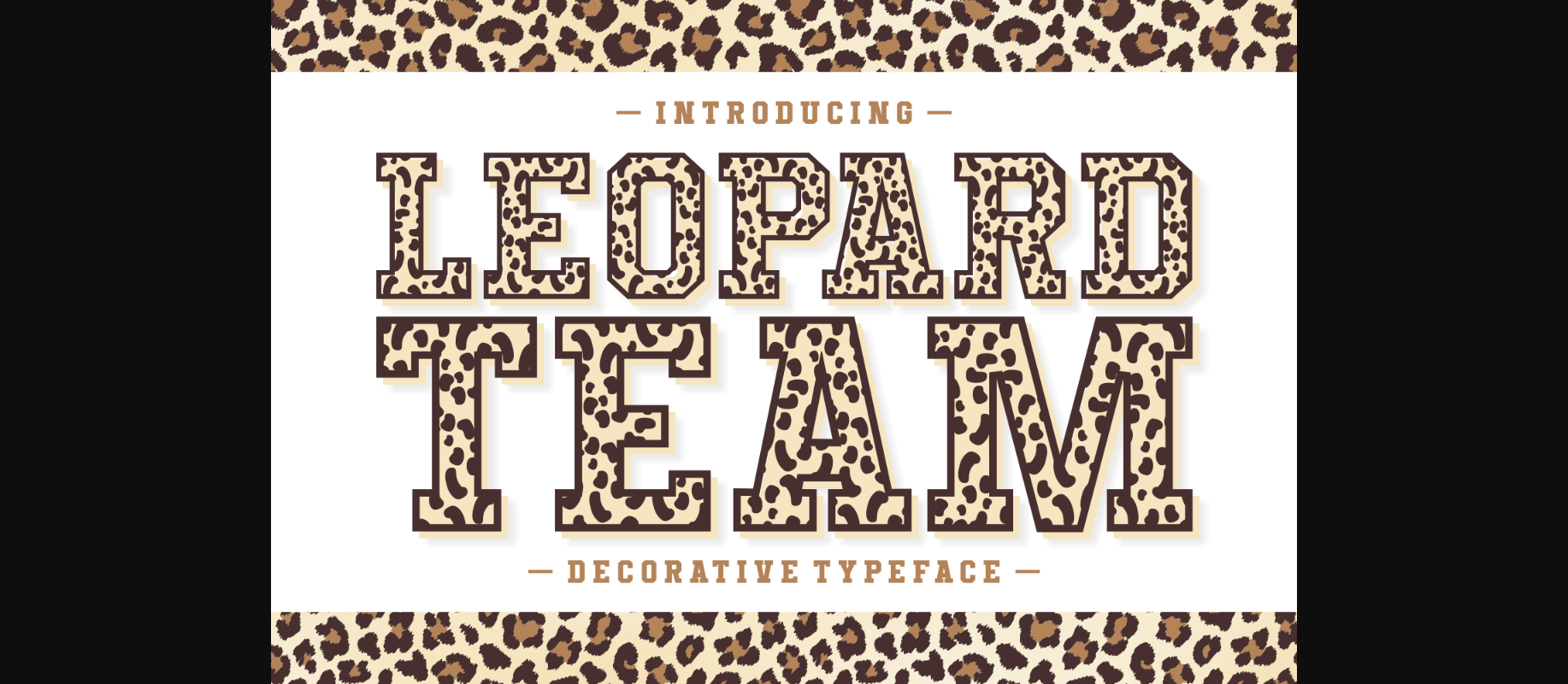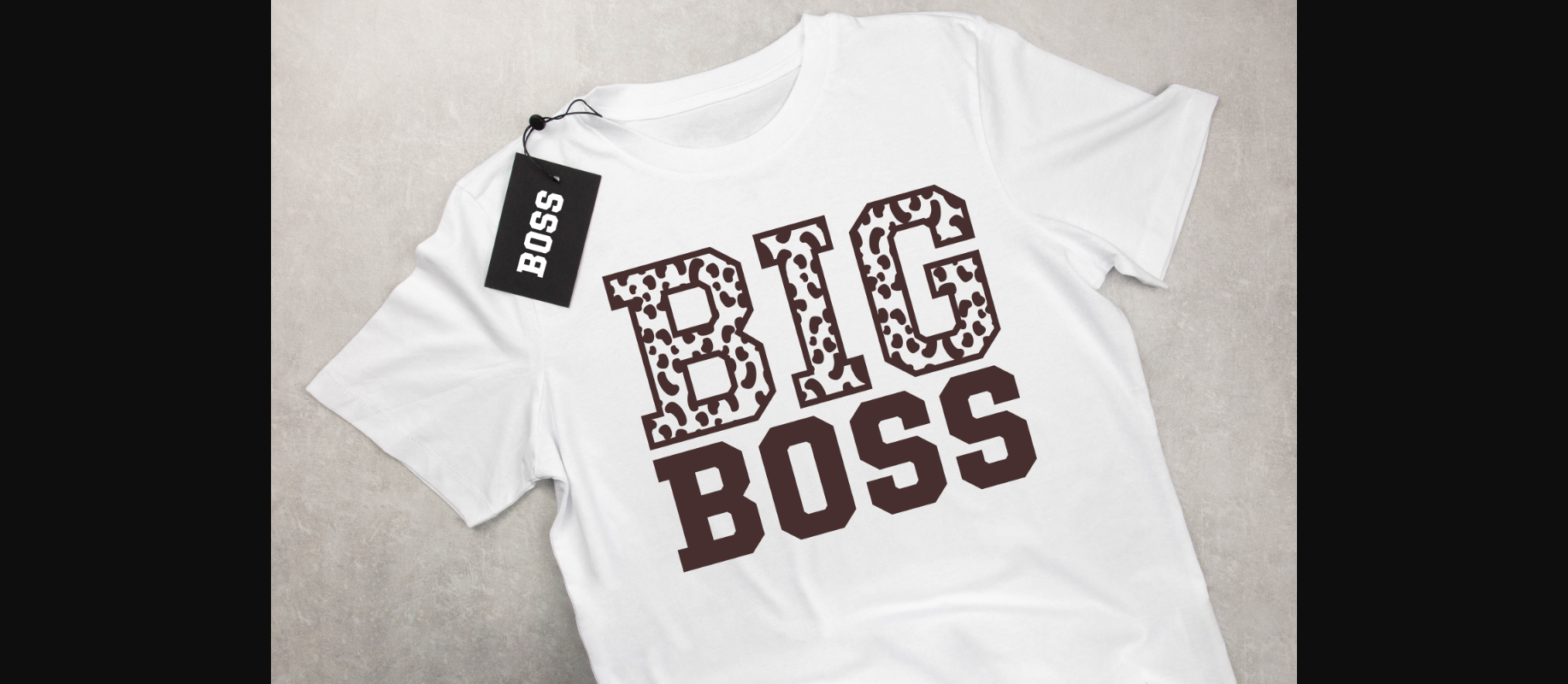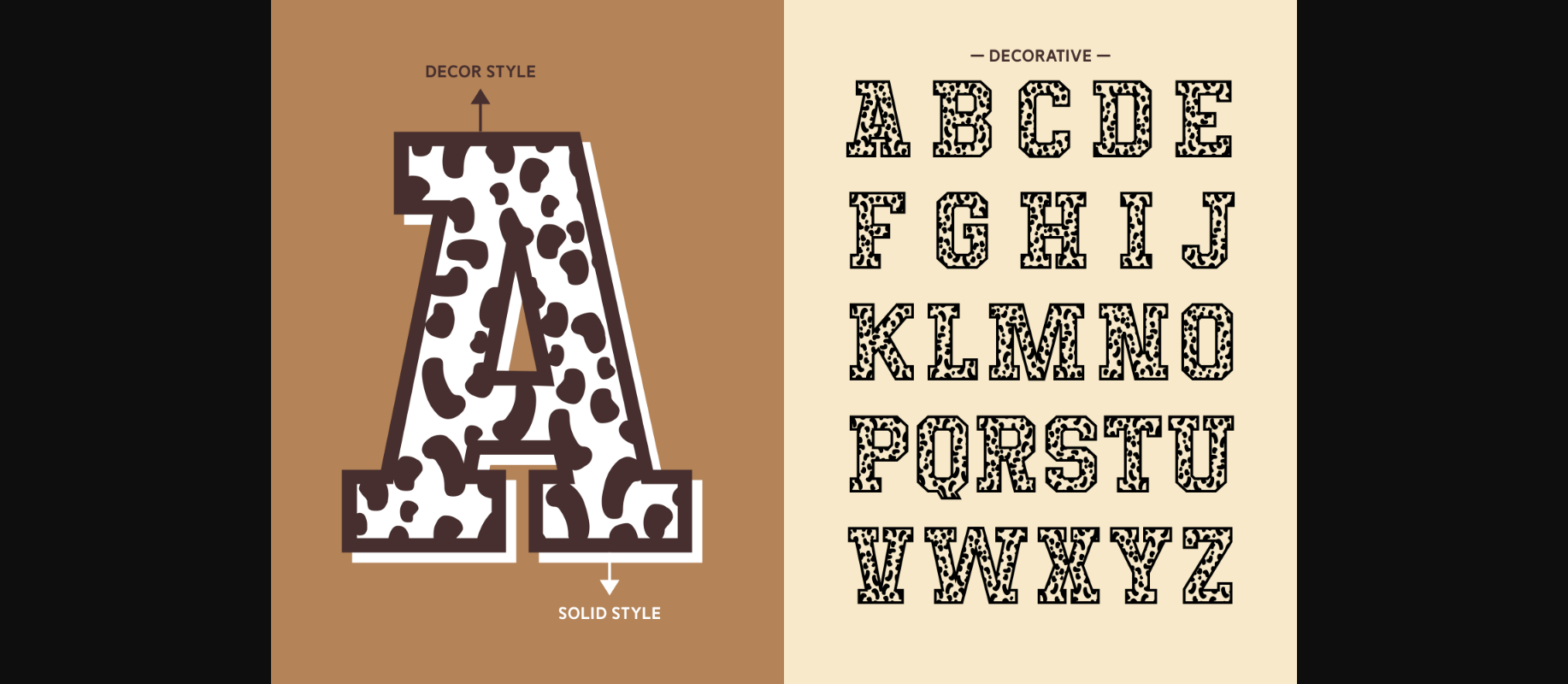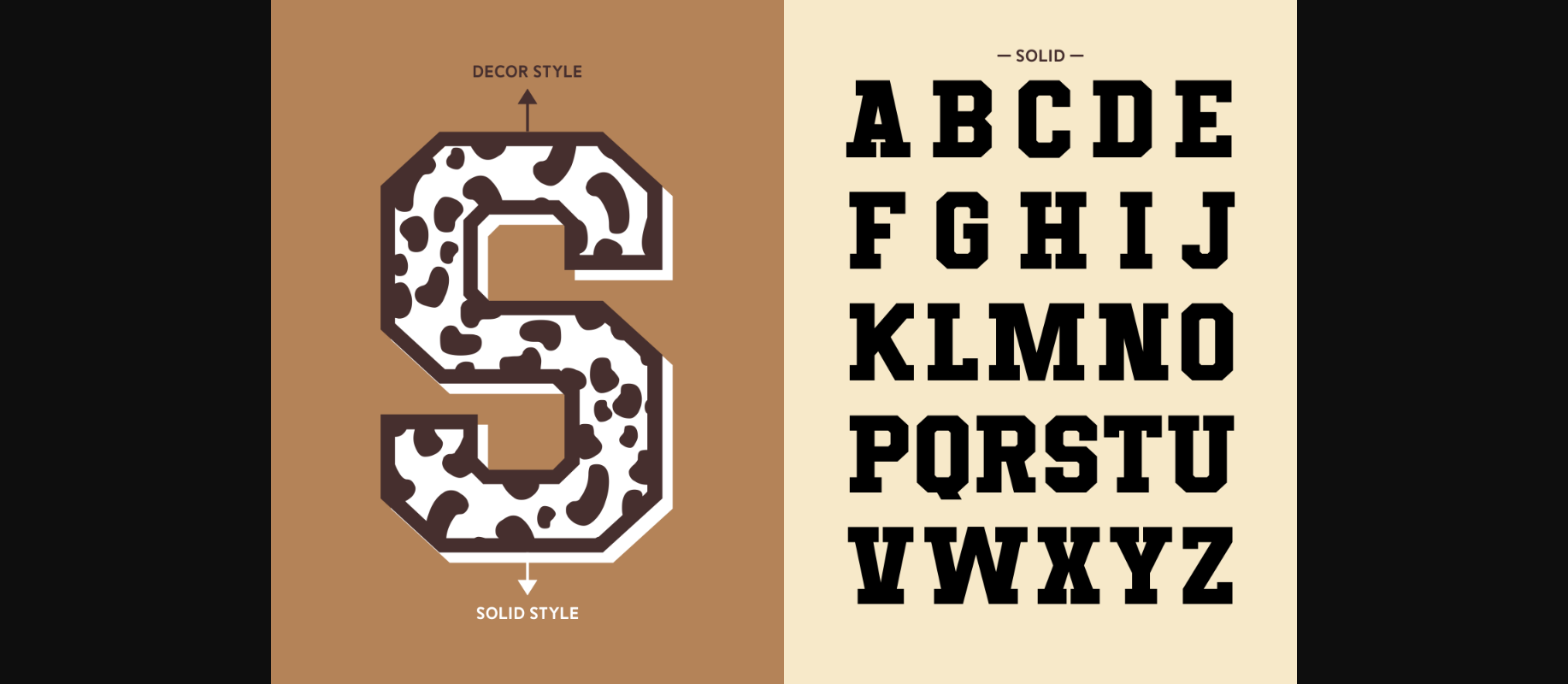
About Leopard Team Font
Leopard Team is a captivating decorative font that effortlessly combines elegance with a touch of wildness. Each letter is beautifully designed with intricate leopard spots, adding a unique and eye-catching element to your text. Whether you’re looking to make a bold statement or add a playful touch to your designs, Leopard Team is the perfect choice. With its distinctive style, this font is sure to leave a lasting impression and bring a touch of untamed beauty to any project.